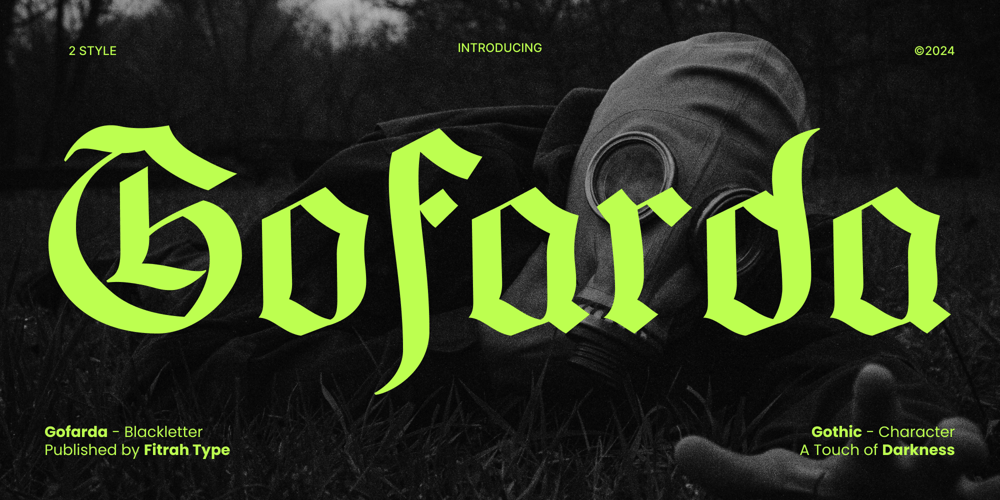
Gofarda Gothic
Gofarda Gothic font
Gofarda Gothic Font Family was designed by Moch Fitrah Hidayat and published by Fitrah Type. Gofarda Gothic contains 2 styles and family package options. Gofarda Gothic is the newest typeface with a simple Blackletter style. There are two styles of font Regular and Distort styles. The entire typography has been designed to work on large sizes. This font is good to use on posters, zines, stickers, and t-shirts.We highly recommend using a program that supports OpenType features and Glyphs panels such as Adobe Illustrator, Adobe Photoshop CC, Adobe InDesign, or CorelDraw, so you can see and access all Glyph variations.